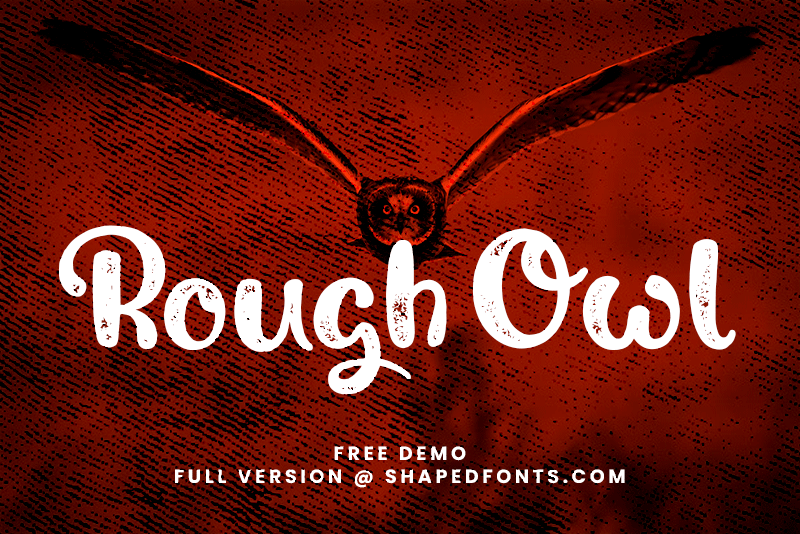
After the release of our "Magic Owl" Typeface we're now introducing its evil brother: �Rough Owl�, is a playful handcrafted premium font with a subtle but still noticeable Grunge Effect that makes your design stand out and gives the font some vintage touches. If you like this demo you can also buy the full version which includes numbers, symbols, special characters and language support for most latin based languages. But that�s not all: ligatures and alternate Glyphs will magically appear while typing to give the font a realistic handwritten nature. Get it now: www.shapedfonts.com/rough PLEASE NOTE: This font is only free for personal use, so please buy a license if you want to use it for commercial purposes (anything you�re aiming profit with). A license can be bought on our website: www.shapedfonts.com/rough CHECK OUT: www.shapedfonts.com/magic for the clean version of this typeface. Please contact us at license@shapedfonts.com if your company has more than 10 employees or if you have any other requests/questions. ALSO NOTE: It is not allowed to modify this font in any way but we�re happy to help you with your custom �Magic Owl� - Solution! More... |